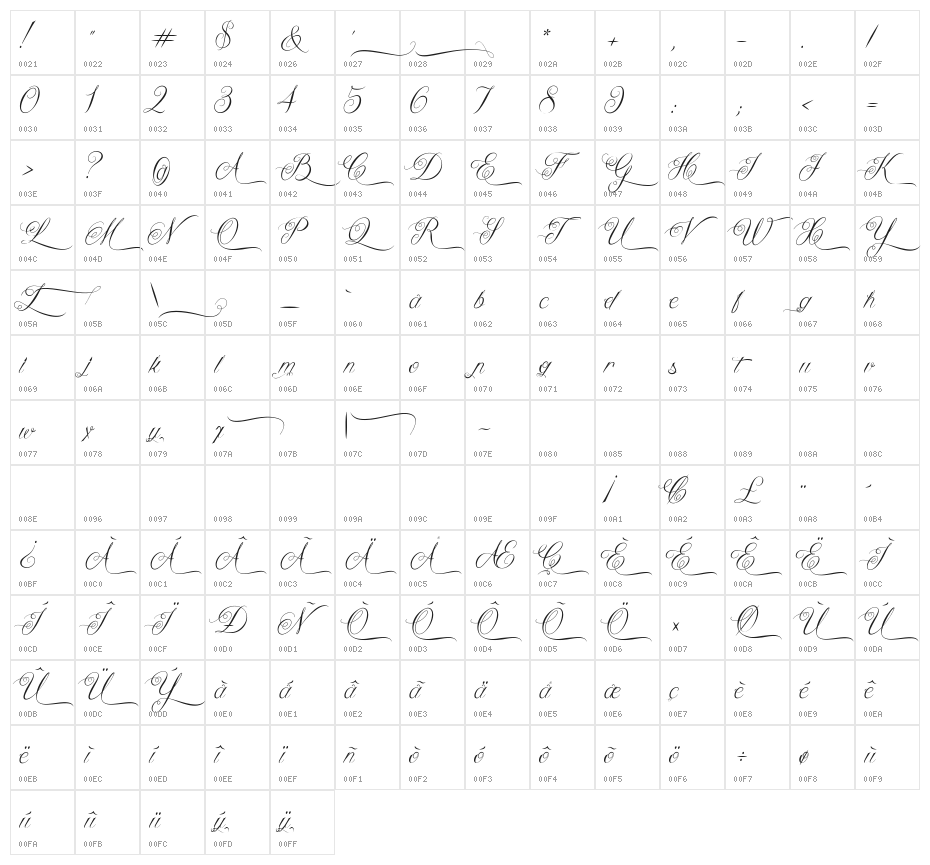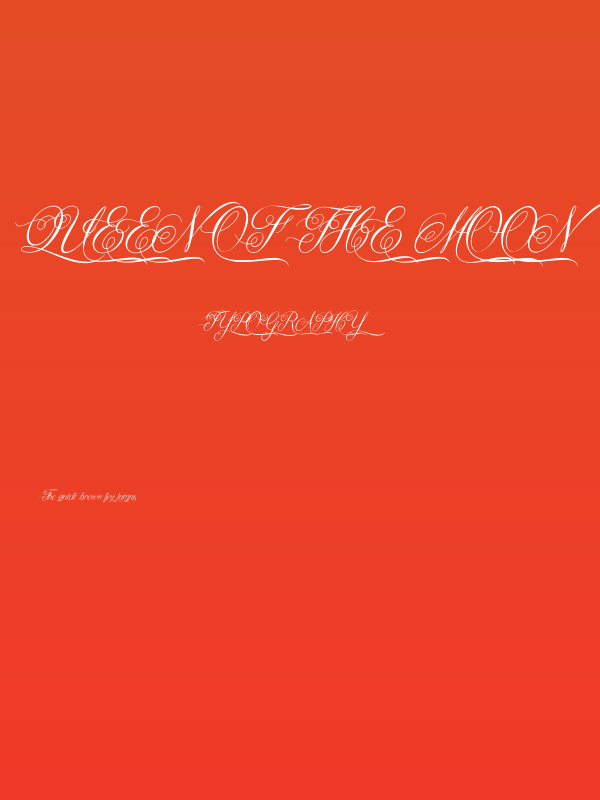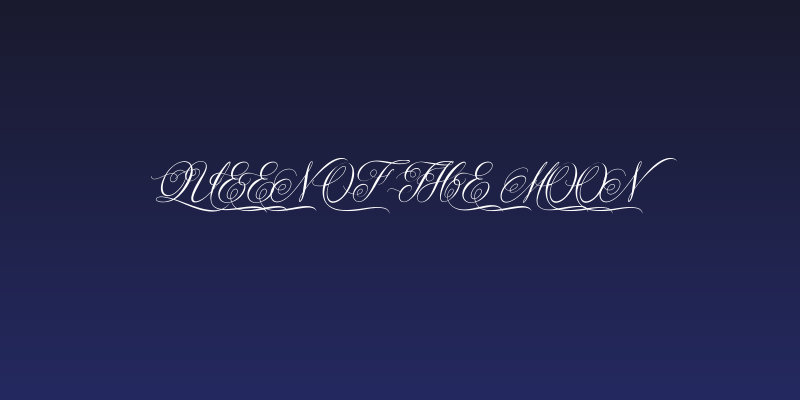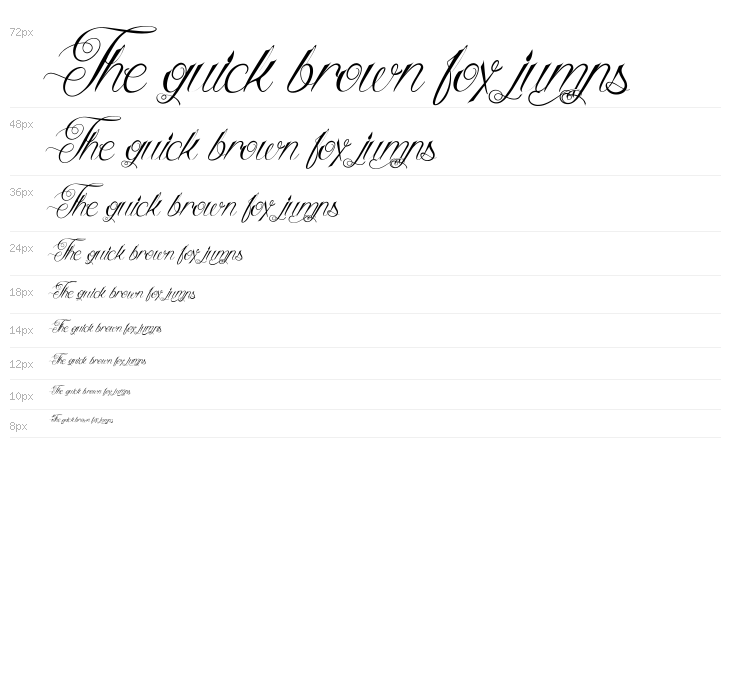
Queen of the Moon Font
Queen of the Moon Description
This font is an elegant and sophisticated script with intricate swirls and flourishes. The uppercase letters are particularly ornate, featuring elaborate loops and curves that give a sense of grandeur and formality. The lowercase letters maintain a consistent style, with smooth, flowing lines that enhance readability while still retaining an artistic flair. Numbers and special characters are designed to match the overall aesthetic, ensuring a cohesive look across all text. This font is perfect for adding a touch of elegance and sophistication to any design project.
| Proposed Projects | Ideal for wedding invitations, luxury branding, formal event programs, and elegant stationery. |